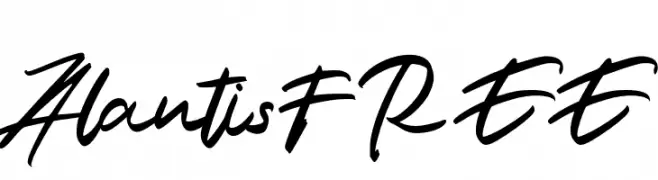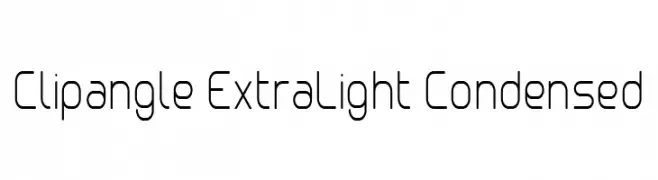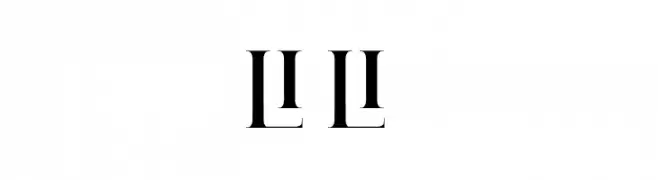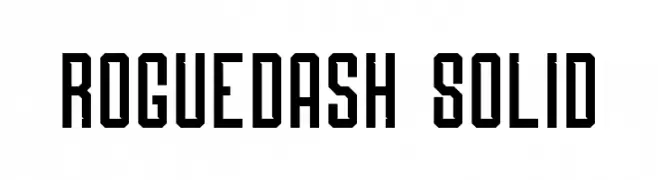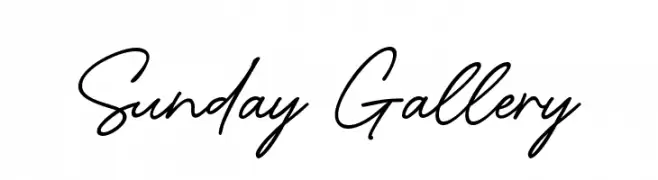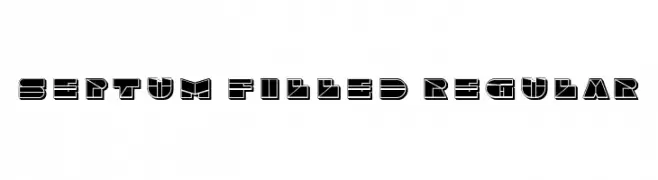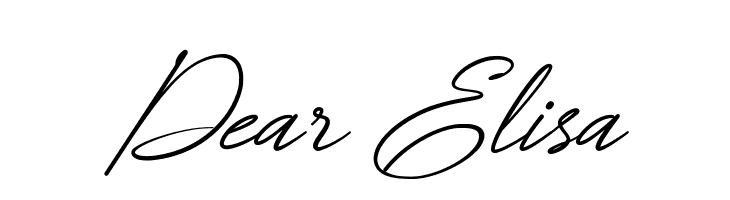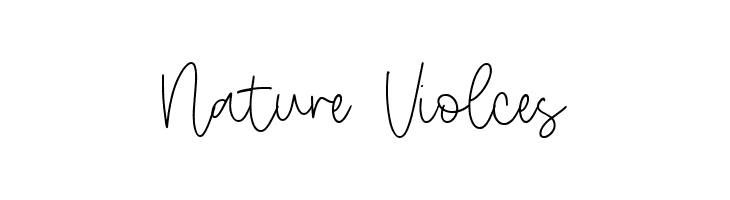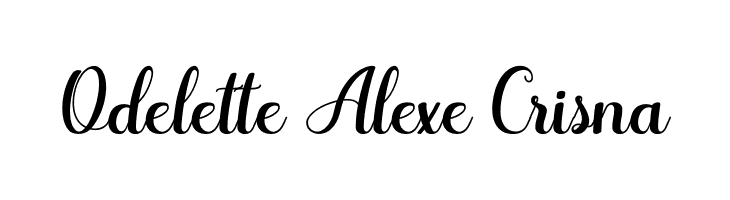
A dynamic and fluid script font with elegant, flowing letterforms.
A sleek, extra light, and condensed font with a modern geometric design.
A decorative and artistic font with intricate flourishes and high contrast.
A playful, bold font with rounded, hand-drawn strokes and a whimsical style.
A modern, elegant handwritten font with fluid and graceful strokes.
A bold, geometric font with a modern and condensed style.
A bold, brush-style script font with dynamic, flowing letterforms.
A flowing, cursive font with a handwritten style and elegant, connected characters.
A modern, italic sans-serif font with sleek, elongated characters and consistent stroke thickness.
A bold, geometric font with a segmented, filled design.